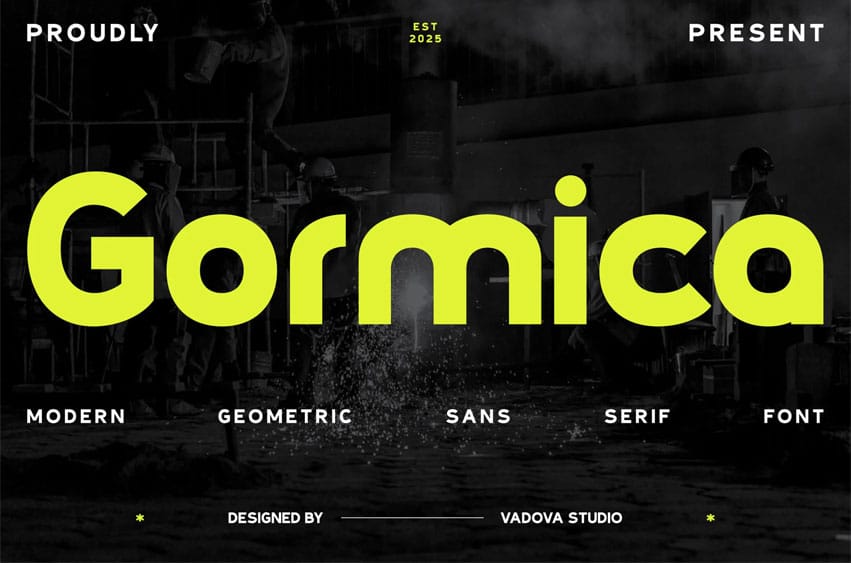
Gormica Font is a geometric sans-serif typeface that radiates modernity and structured minimalism. Its carefully rounded edges, symmetrical proportions, and clean vertical rhythm give it a confident and polished appearance. Every character is engineered with clarity and function in mind, striking a seamless balance between boldness and simplicity. Gormica thrives in high-contrast designs that require both visual strength and typographic finesse.
This font exudes a sleek, futuristic energy perfect for brands looking to appear innovative yet grounded. Its vibe fits right into fashion lookbooks, startup tech brands, minimalist portfolios, and streetwear marketing, conveying presence without distraction. Gormica’s geometric letterforms deliver legibility with style, making it suitable for attention-grabbing headlines, professional layouts, modern packaging, and clean digital banners.
Ideal for the creative market that values refined impact, Gormica turns simple messages into bold statements while maintaining structure and rhythm. It’s a go-to typeface for designers who demand form and function in every detail.